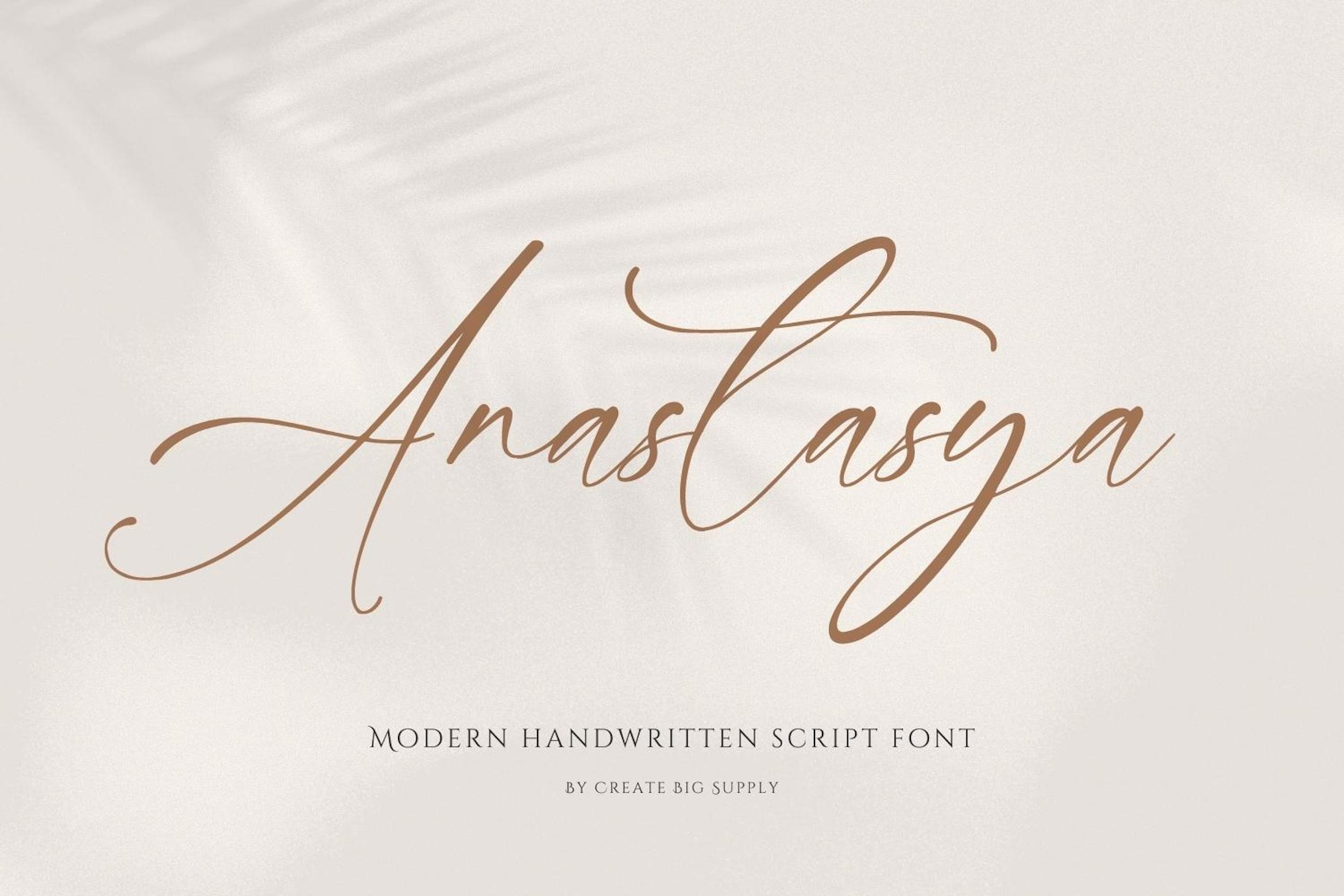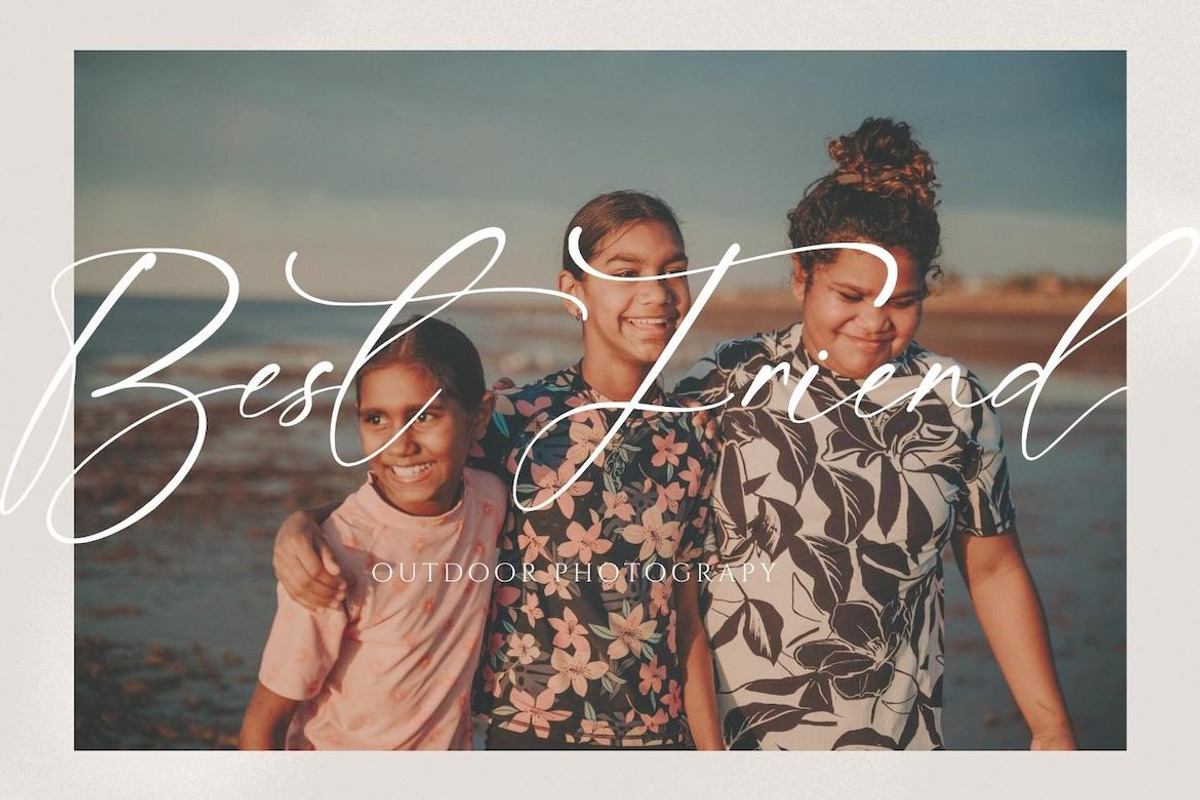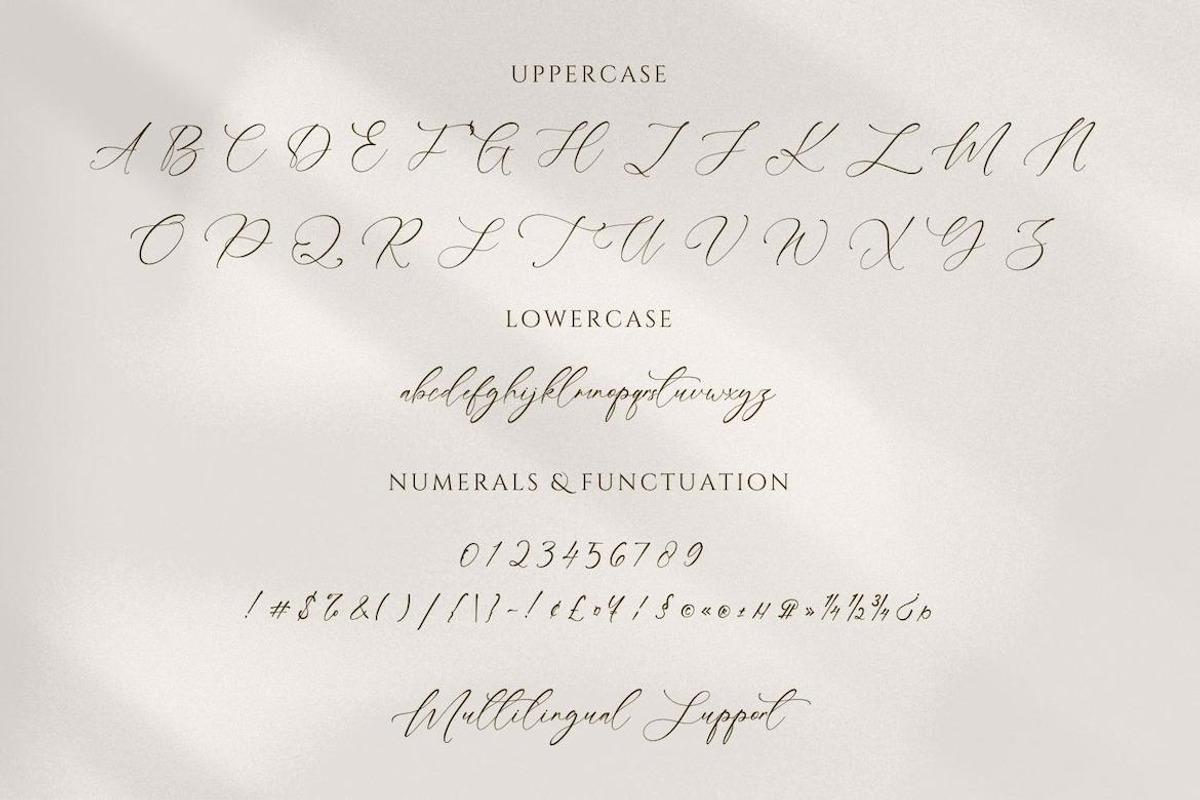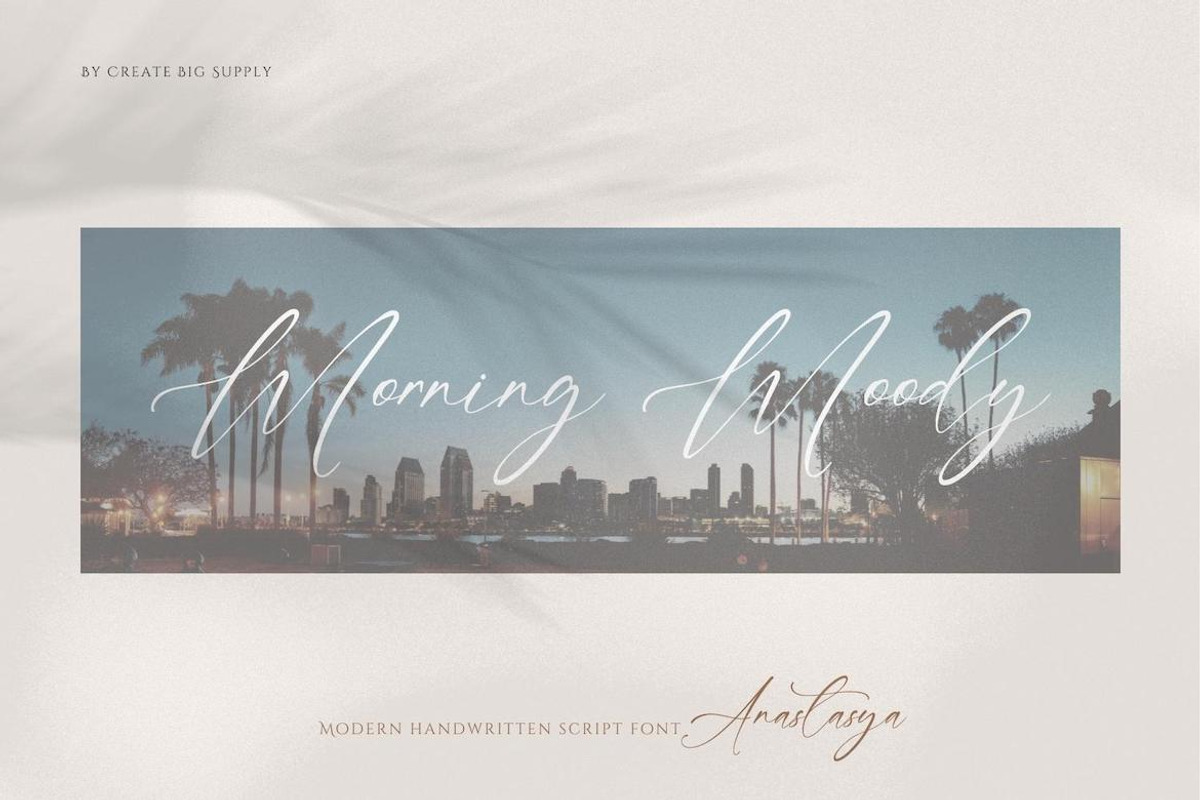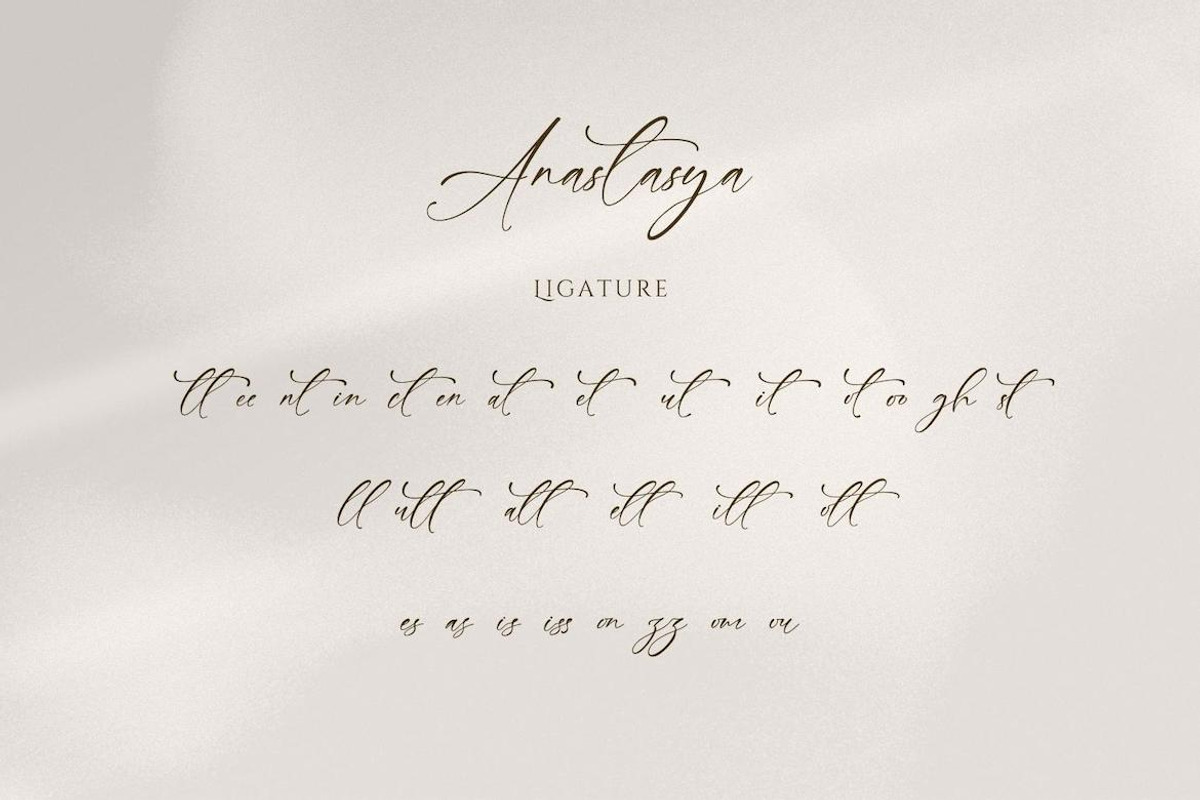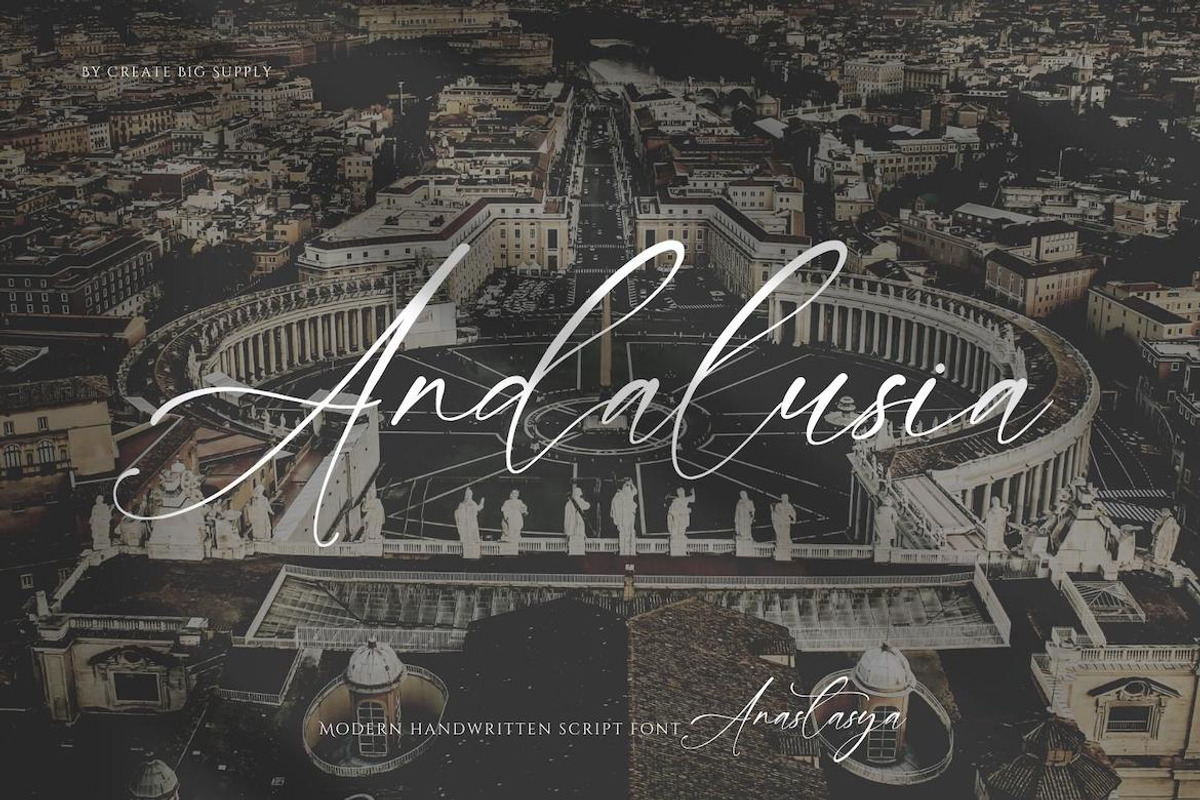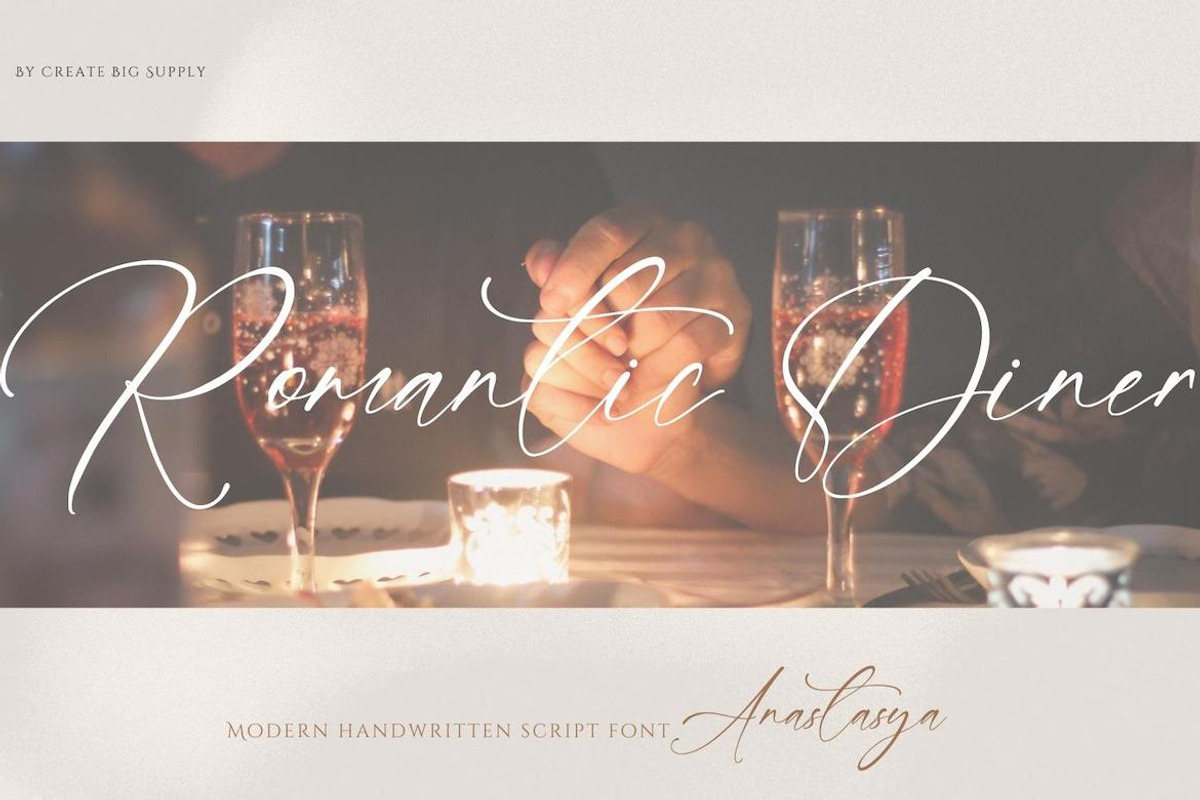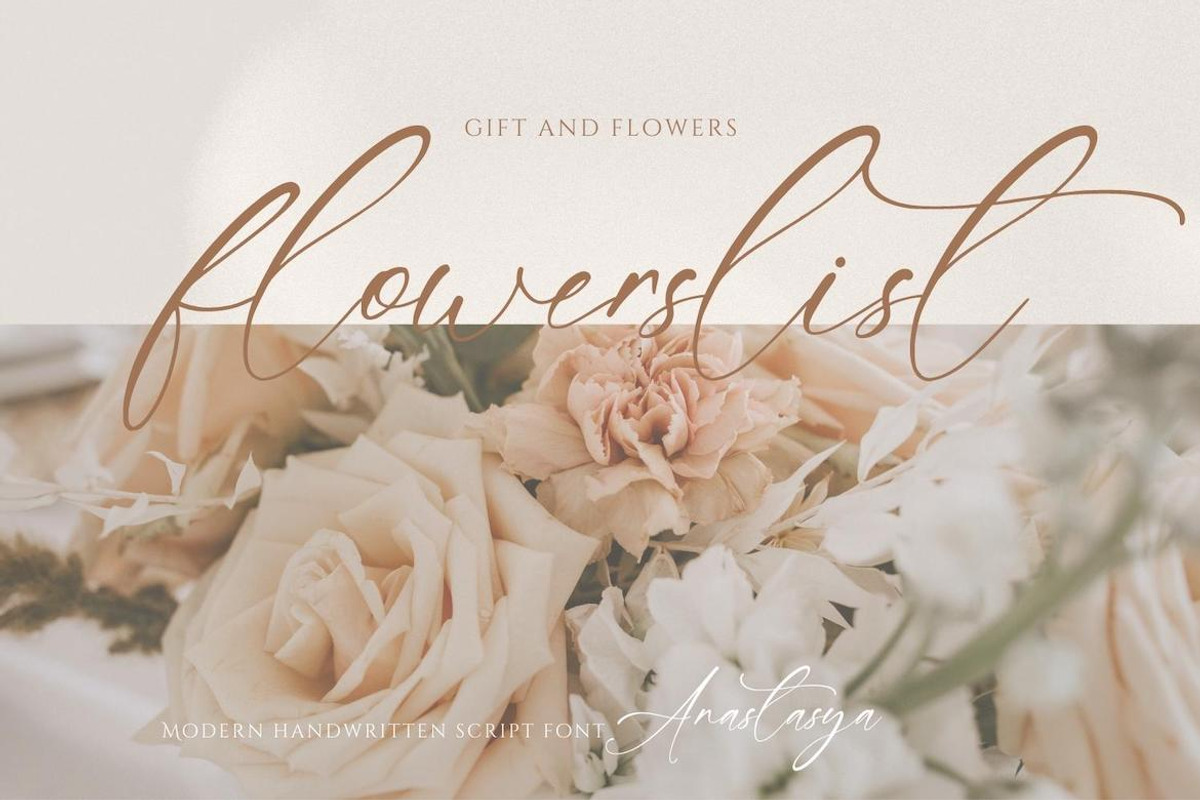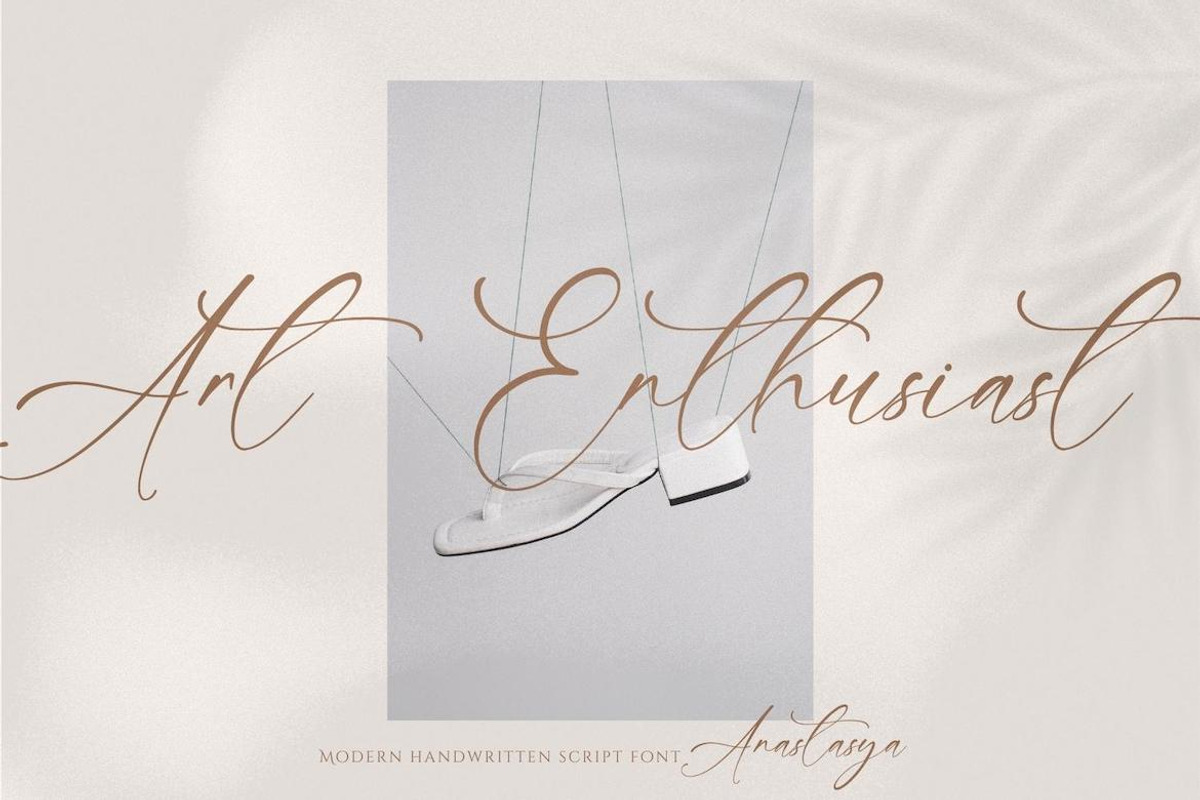
Anastasya Handwritten Signature Font
Introducing Anastasya, an elegant script handwritten signature font that exudes beauty, grace, and femininity. With its stunning style, Anastasya is perfect for adding a touch of sophistication to a variety of projects. Whether you're designing wedding invitations, branding materials, or creating captivating social media posts, Anastasya will elevate your work with its exquisite charm. This font features both uppercase and lowercase letters, numbers, and punctuations, providing versatility and creative freedom. It also supports multiple languages, ensuring accessibility to a global audience. Anastasya includes ligatures and PUA encoding, allowing smooth connections between letters and easy access to special glyphs. Explore the full character set of Anastasya and let its elegant script transform your designs into masterpieces.